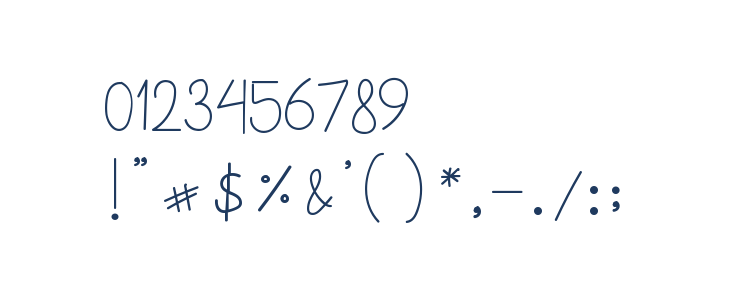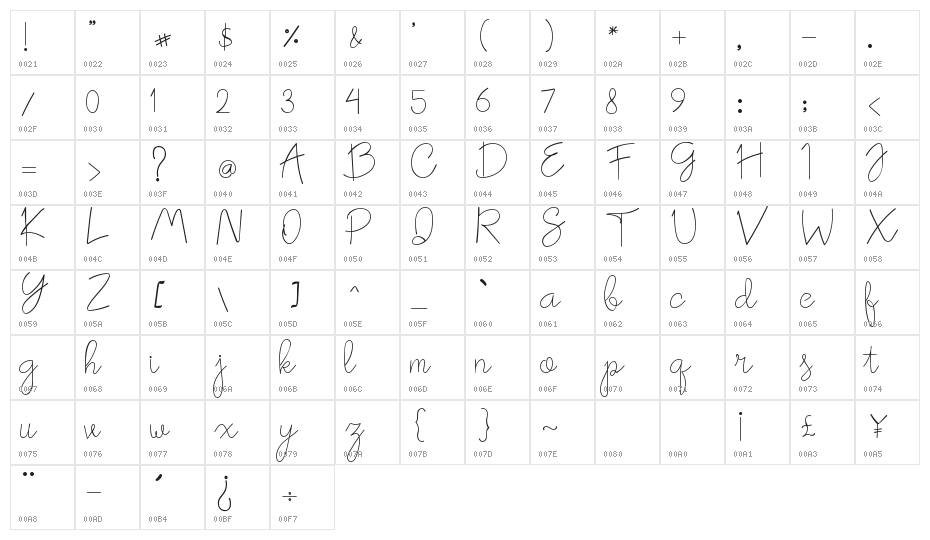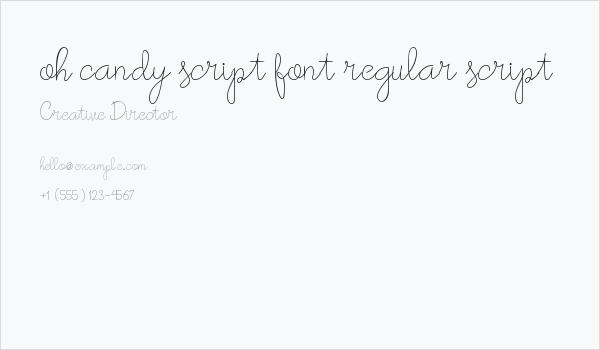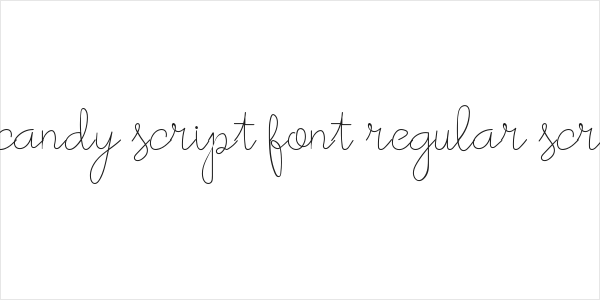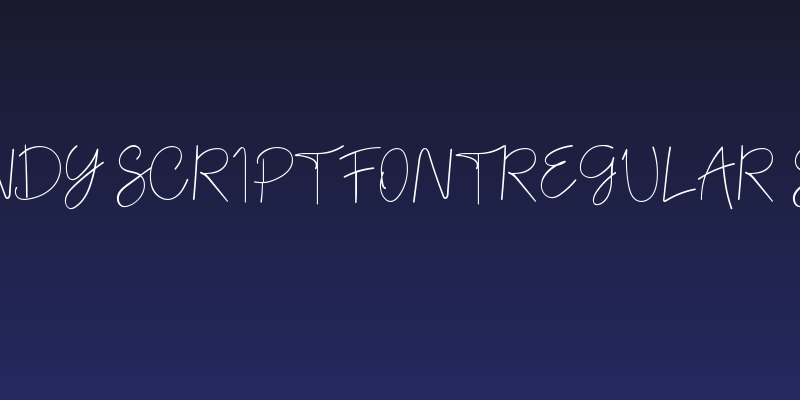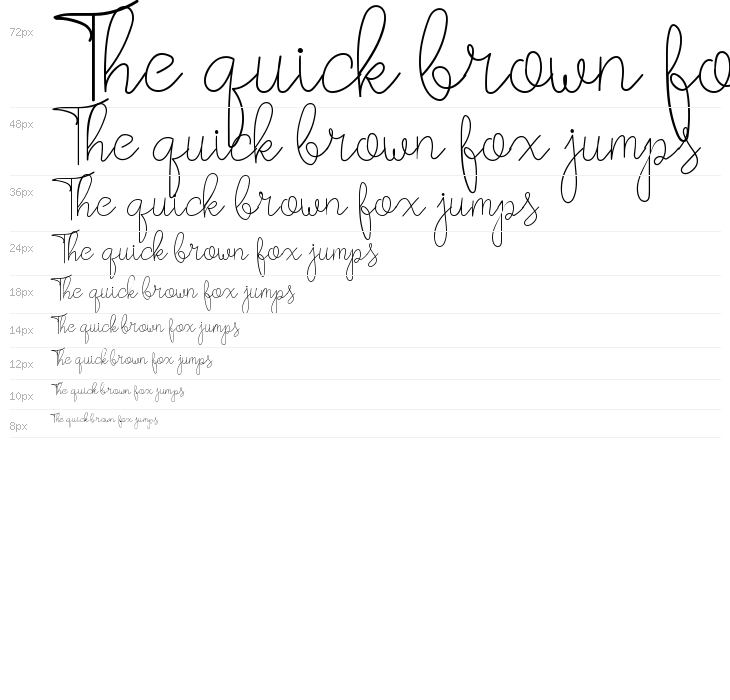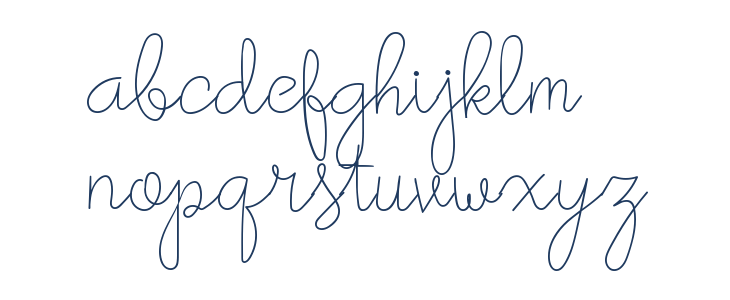
oh candy script font regular script Font
oh candy script font regular script Description
This font features a playful and elegant script style with a handwritten appearance. The letters are connected smoothly, creating a flowing and continuous look. Each character is crafted with a consistent stroke width, giving it a harmonious and balanced feel. The uppercase letters are slightly more upright, while the lowercase letters exhibit a gentle slant, enhancing the cursive effect. The numerals and special characters maintain the same fluidity, ensuring a cohesive design throughout. This font exudes a sense of charm and sophistication, making it suitable for a variety of creative applications.